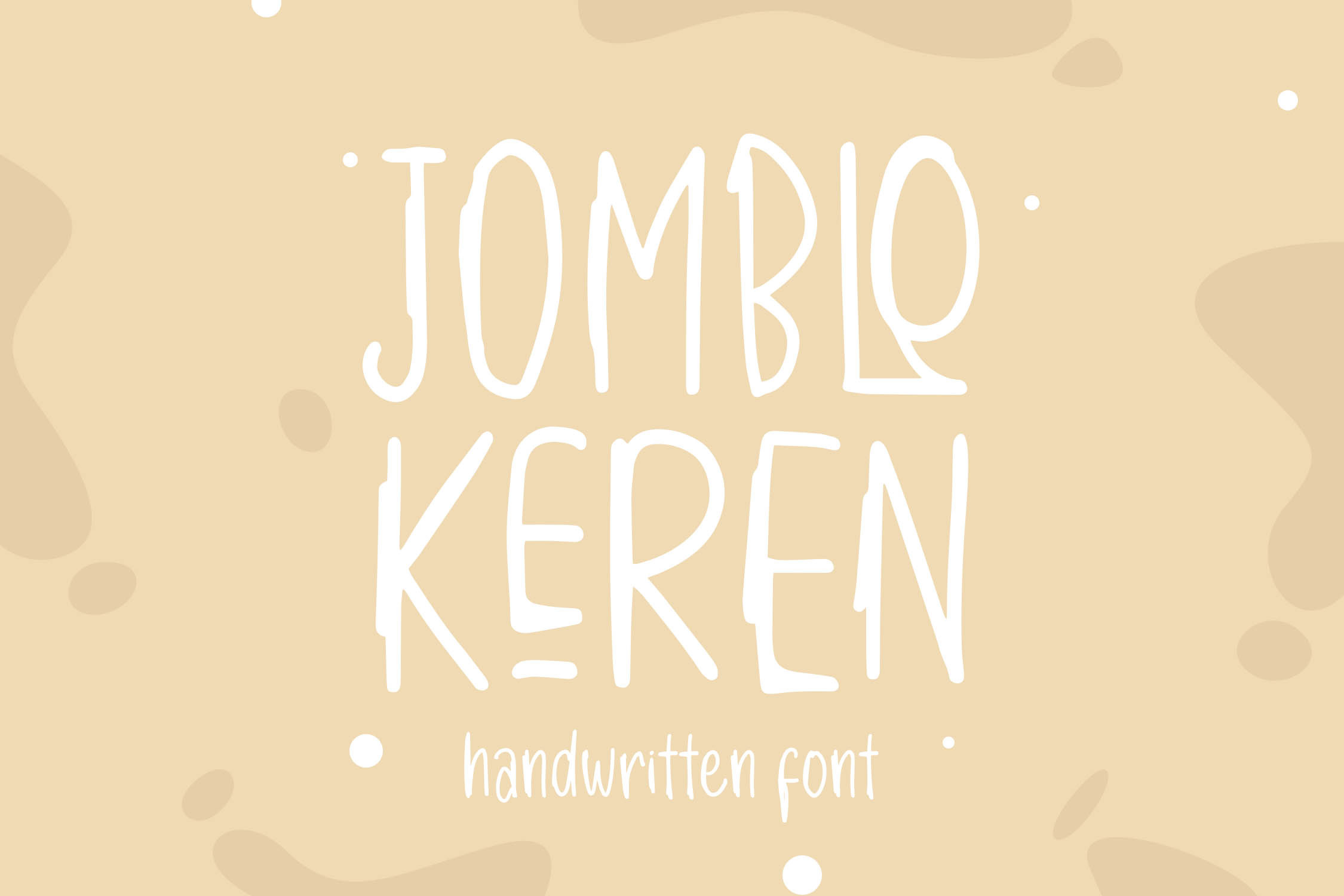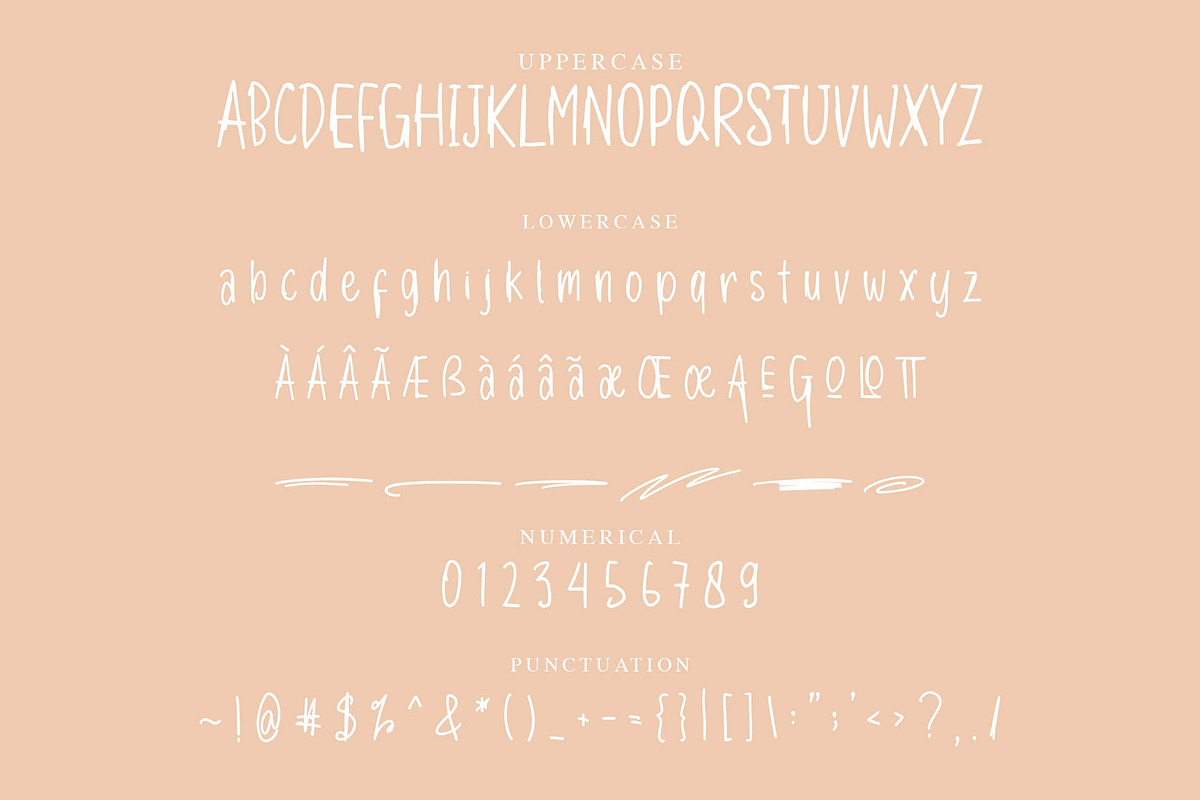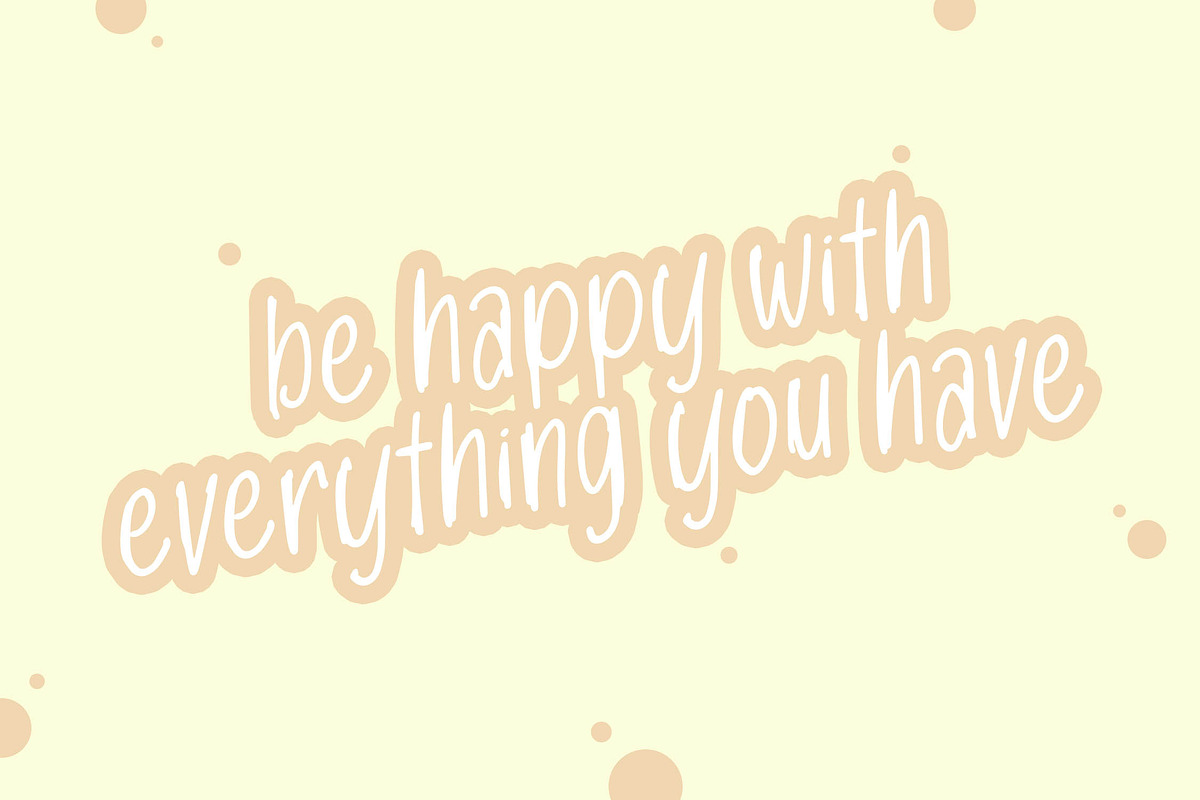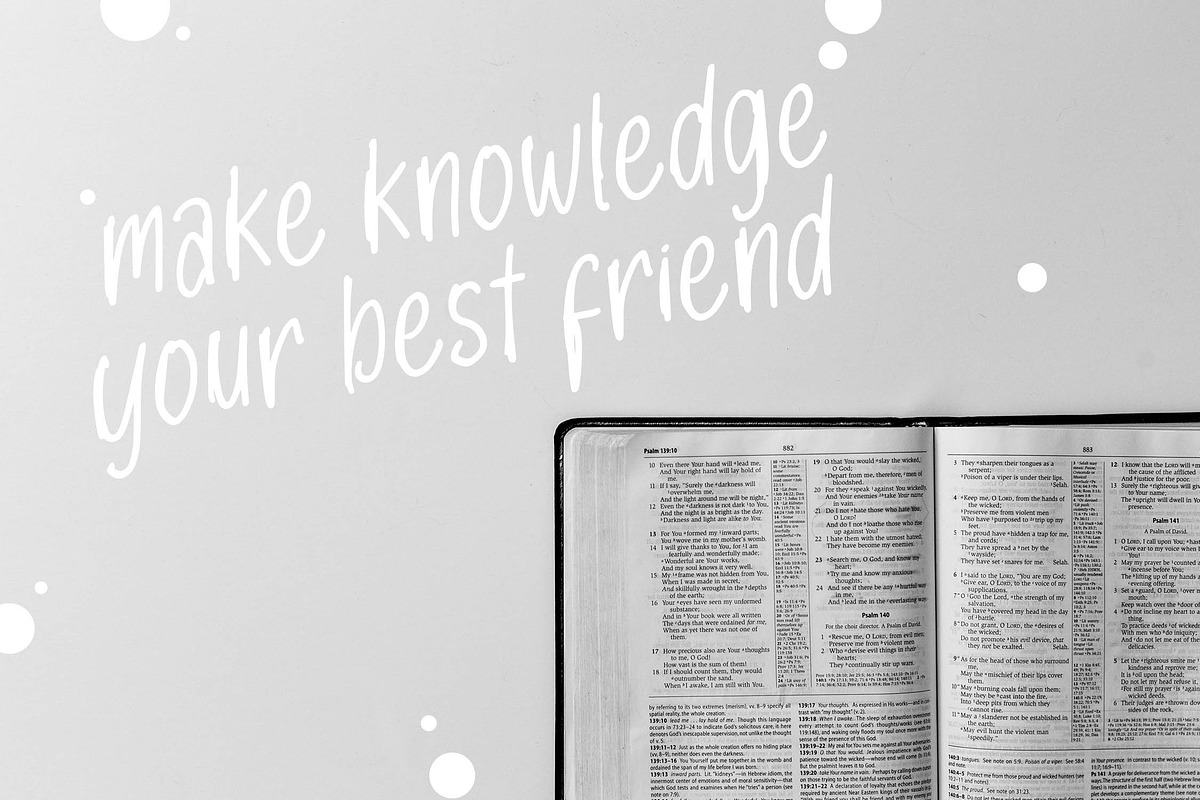
JOMBLO KEREN - Handwritten Font
JOMBLO KEREN is a playful display font with a handwritten style. Is a font style that is made with scratches handwritten shapes font characters are very beautiful. Can be applied to support the graphic appearance of the product to be more attractive and unique. This font is very nice for making previews and covers designs, cute logos, shirts, and other graphic needs.
- Stylistic Alternate
- Italic Style